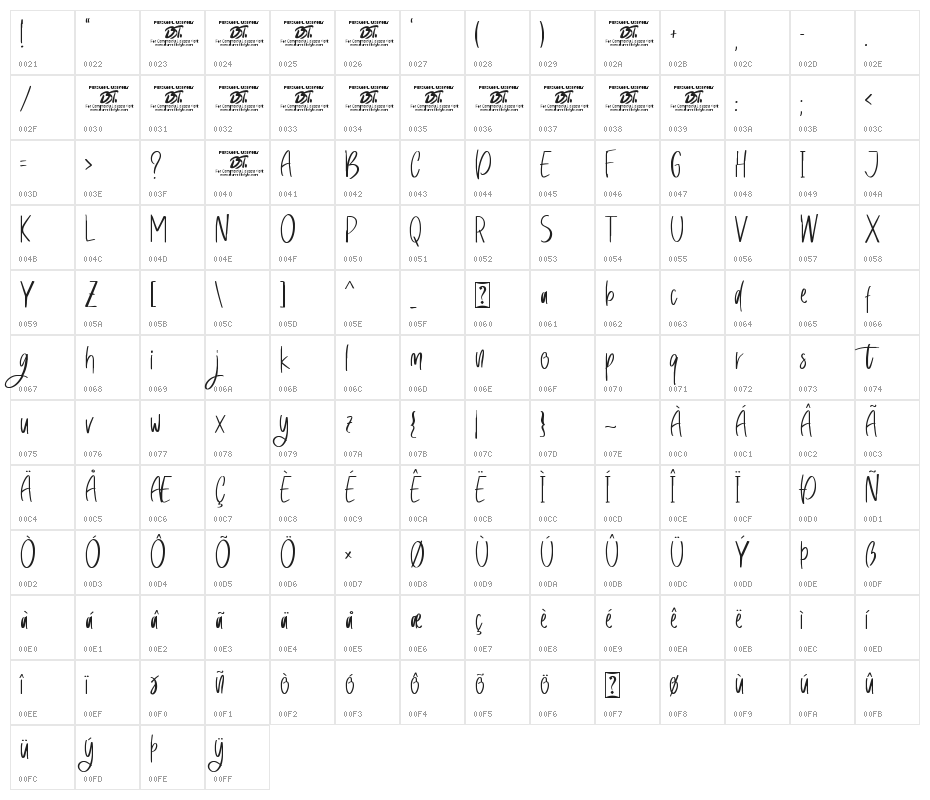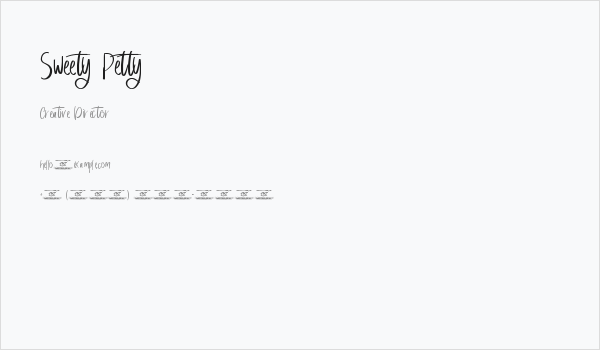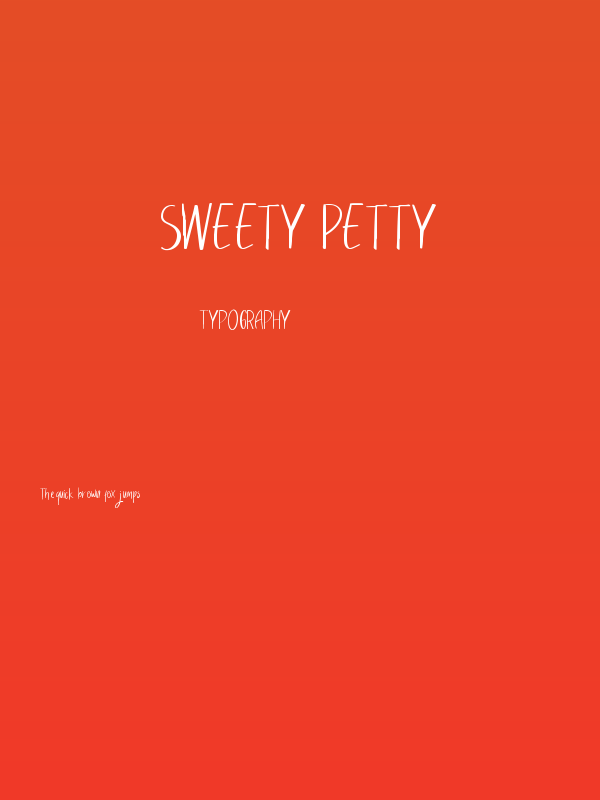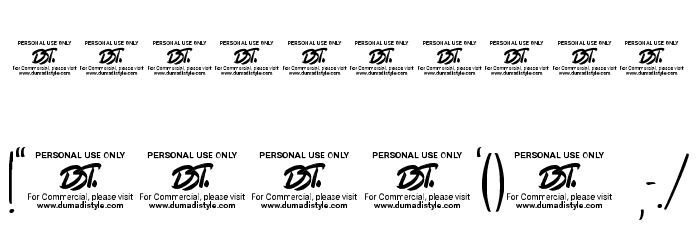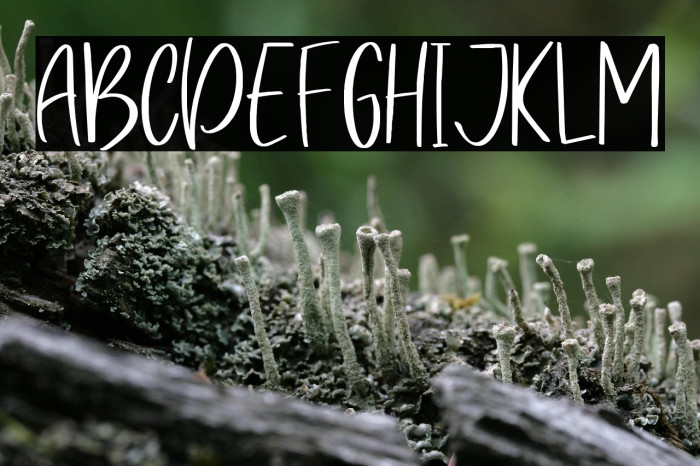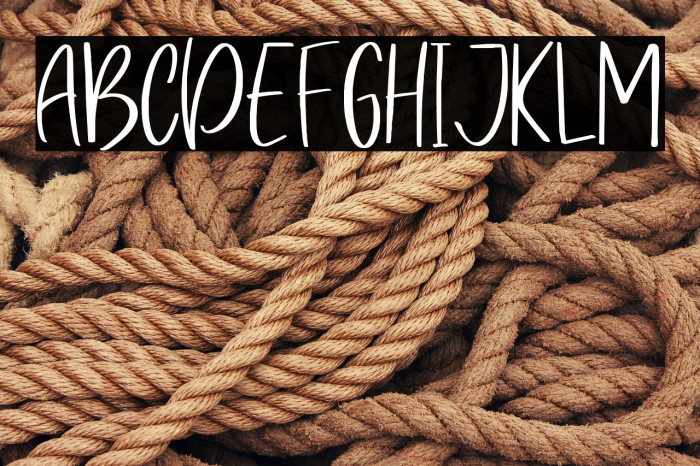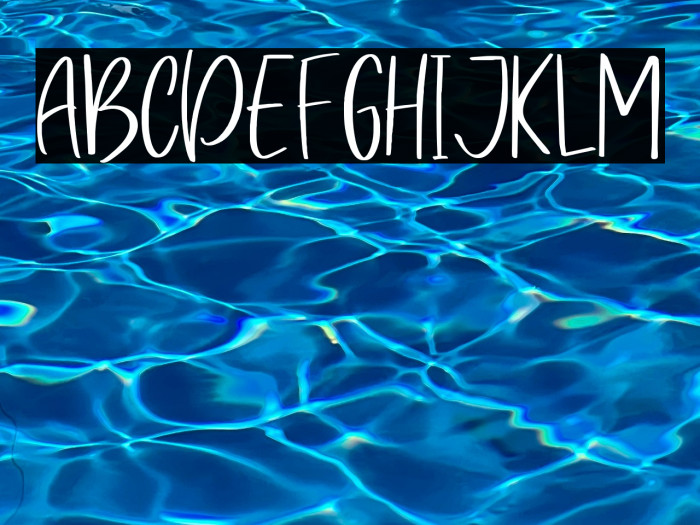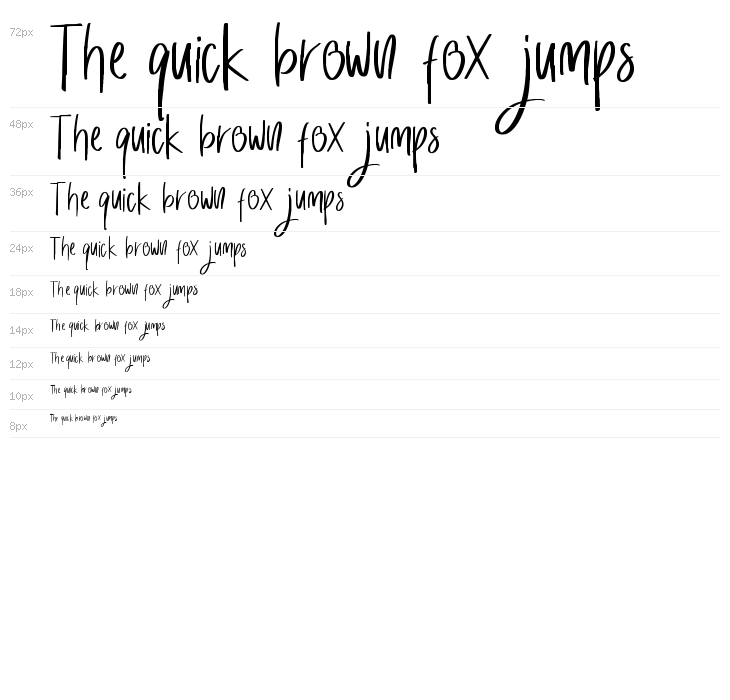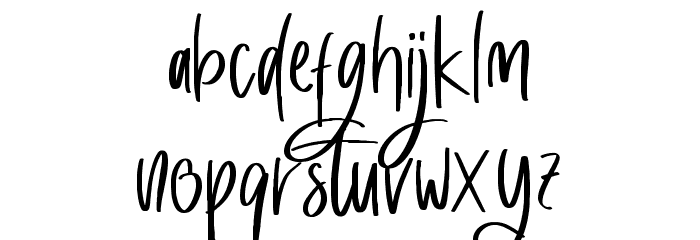
Sweety Petty Font
Sweety Petty Description
This font features a playful and whimsical handwritten style, characterized by its tall, narrow letters with a slight slant. The strokes are smooth and fluid, giving it a casual yet elegant appearance. The uppercase letters are bold and prominent, while the lowercase letters maintain a consistent flow with occasional flourishes, adding a touch of personality. The numbers and special characters align with the overall style, ensuring a cohesive look. This font's unique charm makes it suitable for projects that require a personal and friendly touch.